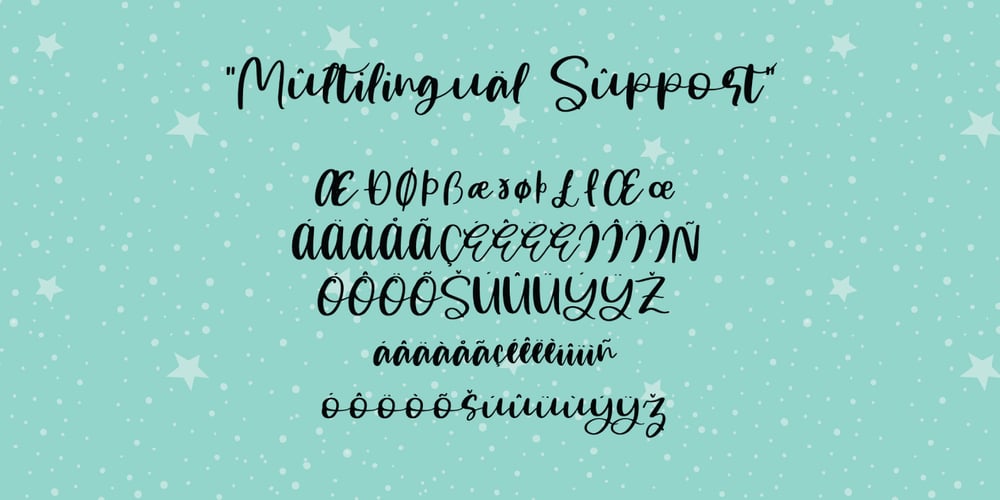
Oho Julie Font Family was designed by Porapak Apichodilok and published by PaulaType. Oho Julie contains 1 styles and family package options. Introducing Oho Julie – A Chic Brush Stylist font perfect for high impact headlines This font is a perfect script designed for making your set of invitations, Brand, blog posts, and more completely beautiful Multilingual support for the following languages: Cornish, Danish, Dutch, English, Estonian, Faroese, Filipino, Finnish, French, Galician, German, Icelandic, Indonesian, Irish, Italian, Norwegian Bokmål, Norwegian Nynorsk, Portuguese, Spanish, Swahili, Swedish, Swiss German. Thank you Nursery Art